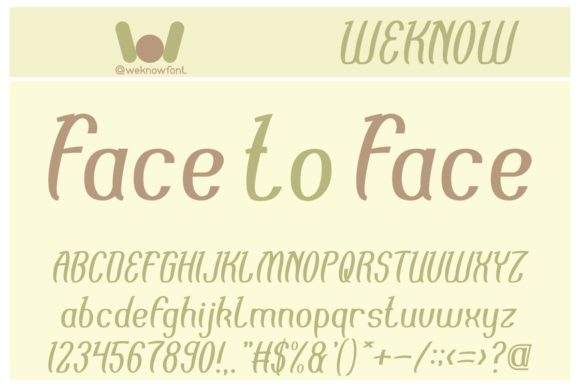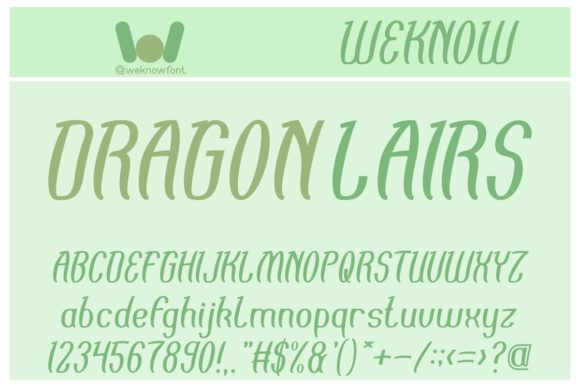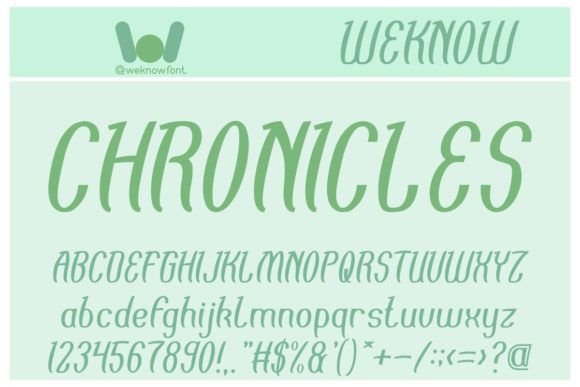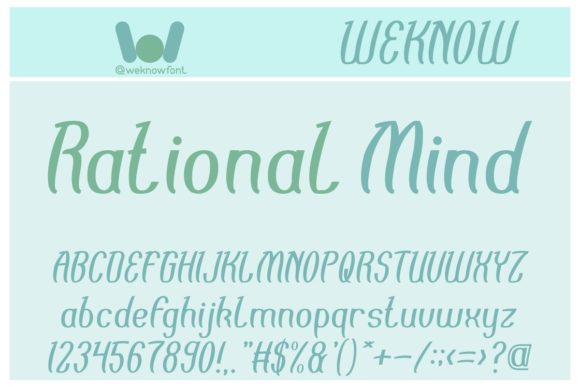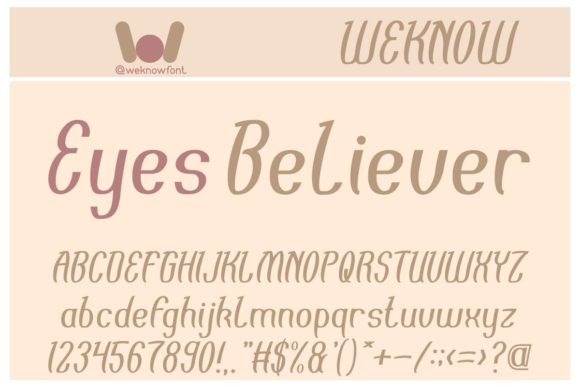
Eyes Believer Font: Elevate Your Designs with a Delicate Handwritten Style
Are you on the hunt for a font that exudes elegance and sophistication? Look no further than Eyes Believer Font, a beautifully crafted handwritten font that’s perfect for a wide range of design projects. In this article, we’ll dive into the world of Eyes Believer, exploring its features, benefits, and uses, and provide you with valuable insights on how to make the most of this stunning font.
What is Eyes Believer Font?
Eyes Believer Font is a well-balanced and delicate handwritten font that’s designed to add a touch of coolness to your designs. Its elegant and refined aesthetic makes it an ideal choice for various apparel industries, including posters, music covers, movie titles, games, magazines, books, comics, cartoons, YouTube, Instagram, websites, and any other creative design projects you can think of.
Key Features of Eyes Believer Font
- Delicate Handwritten Style: Eyes Believer boasts a beautiful, handwritten aesthetic that’s both elegant and refined.
- Well-Balanced: The font’s careful balance of thick and thin lines creates a harmonious visual flow that’s easy on the eyes.
- Cool and Versatile: Whether you’re designing for fashion, entertainment, or education, Eyes Believer adapts seamlessly to various industries and design projects.
- Highly Legible: Despite its delicate nature, Eyes Believer remains highly legible, making it perfect for body text and captions.
Benefits of Using Eyes Believer Font
So, why should you choose Eyes Believer Font for your next design project? Here are just a few benefits you can expect:
- Adds Elegance and Sophistication: Eyes Believer’s refined aesthetic instantly elevates your designs, adding a touch of luxury and sophistication.
- Enhances Creativity: With Eyes Believer, you can experiment with a wide range of design possibilities, from minimalist typography to bold, statement-making graphics.
- Perfect for Branding and Marketing: The font’s unique blend of elegance and coolness makes it an excellent choice for branding and marketing materials, helping you stand out in a crowded market.
Using Eyes Believer Font in Your Designs
Now that you’re excited about Eyes Believer Font, let’s explore some practical ways to incorporate it into your designs:
- Posters and Flyers: Create eye-catching posters and flyers for events, promotions, or product launches with Eyes Believer as your go-to font.
- Music and Movie Titles: Add a touch of glamour to your music covers, movie titles, or album art with Eyes Believer’s elegant, cursive script.
- Magazines and Books: Use Eyes Believer as a headline or body font in your magazine or book designs, adding a touch of sophistication to your editorial content.
- Digital Media: Apply Eyes Believer to your YouTube videos, Instagram posts, or website designs, creating a consistent brand identity across digital platforms.
Tips and Tricks for Working with Eyes Believer Font
To get the most out of Eyes Believer Font, keep the following tips in mind:
- Experiment with Font Sizes: Play with different font sizes to create visual hierarchy and add emphasis to your designs.
- Pair with Other Fonts: Combine Eyes Believer with complementary fonts to create a unique and visually appealing typography.
- Adjust Line Spacing: Fine-tune line spacing to ensure optimal readability and flow.
Eyes Believer Font is a stunning, delicate handwritten font that’s perfect for designers and crafters looking to add a touch of elegance and sophistication to their designs. With its well-balanced aesthetic, versatility, and high legibility, Eyes Believer is an excellent choice for a wide range of design projects. By incorporating Eyes Believer into your workflow, you’ll unlock a world of creative possibilities and take your designs to the next level.